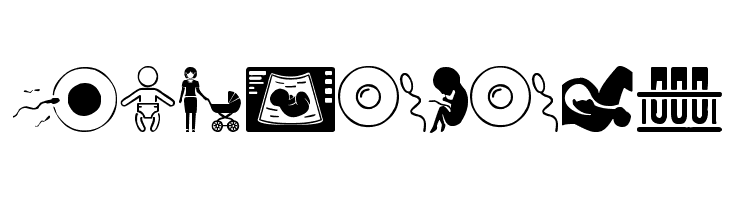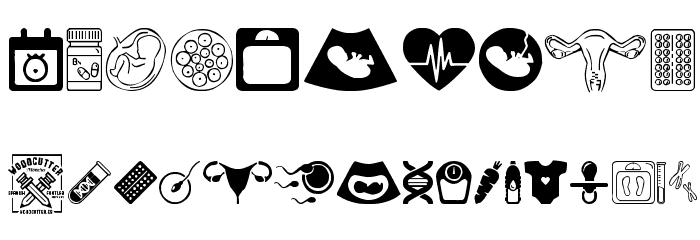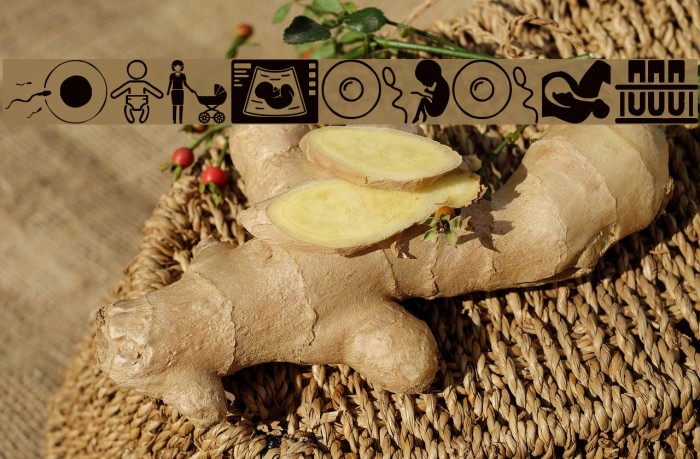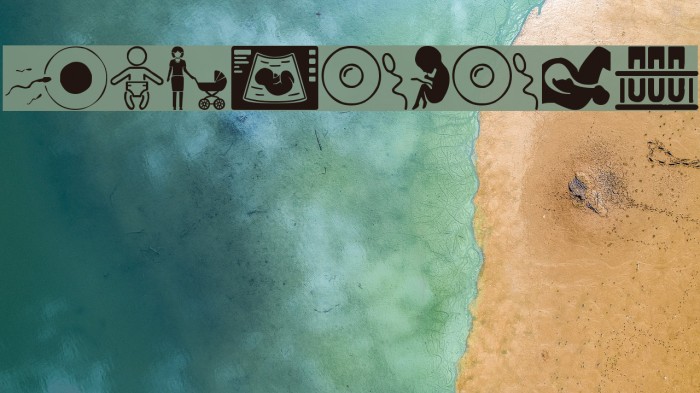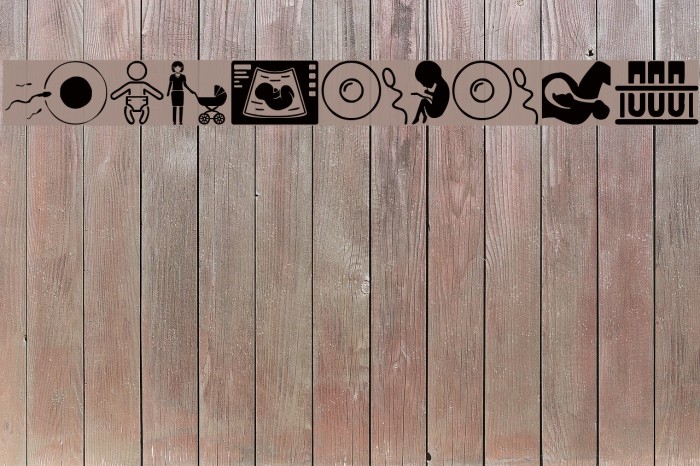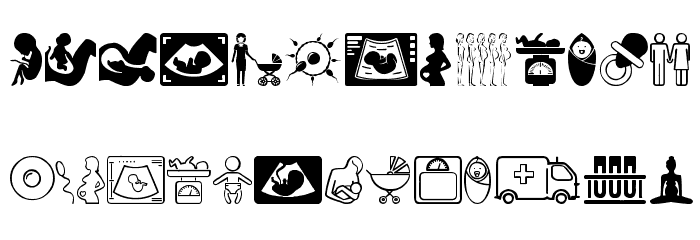
Pregnancy Font
Pregnancy Description
A pictogram-style icon set focused on pregnancy and related medical themes, featuring simplified, high-contrast silhouettes and line drawings. The icons include representations of pregnant women, fetuses, medical equipment, ultrasounds, and family planning symbols. The style is consistent, with both filled and outlined icons, and clear, easily recognizable shapes.
A bold, pictographic icon set themed around pregnancy and maternity from Uncategorized fonts.
- Proposed Projects: Medical infographics, pregnancy apps, educational materials, healthcare websites, maternity brochures.
- Overall Style: Modern, Informative, Pictographic
- Use Case: Icons, Infographics, App UI, Educational Posters